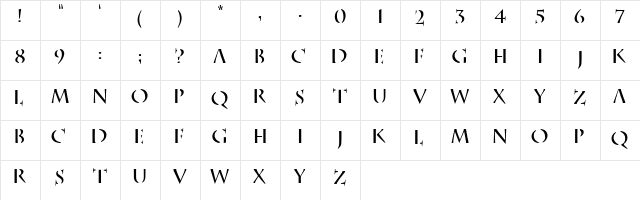
REPELL Regular
Design Context for REPELL Typeface
REPELL is a composed and adaptable typeface that performs quietly and consistently across a wide range of design contexts.